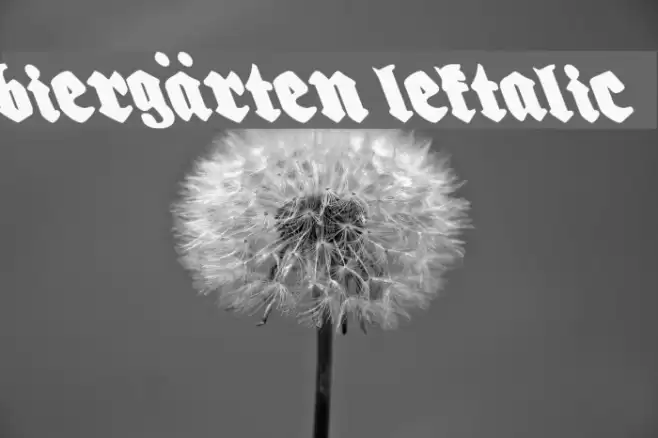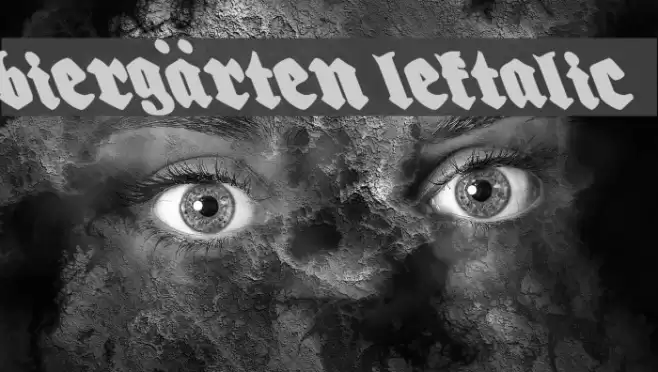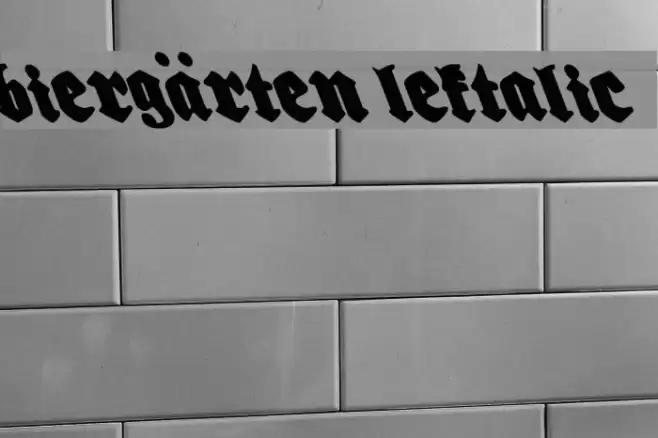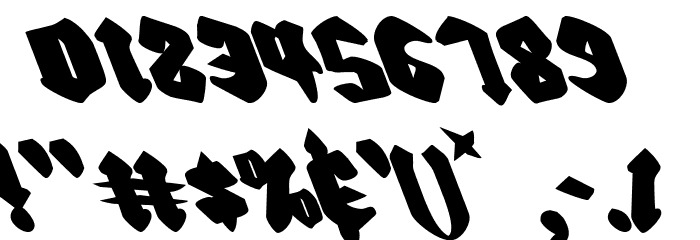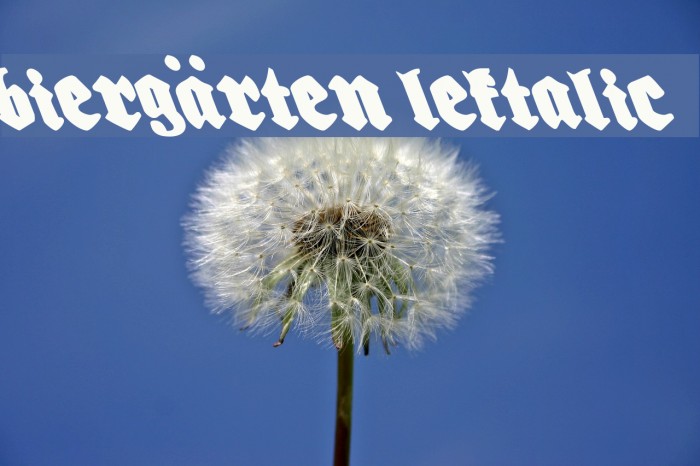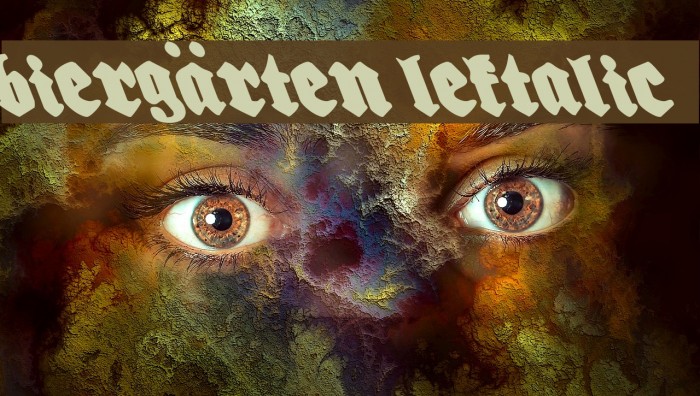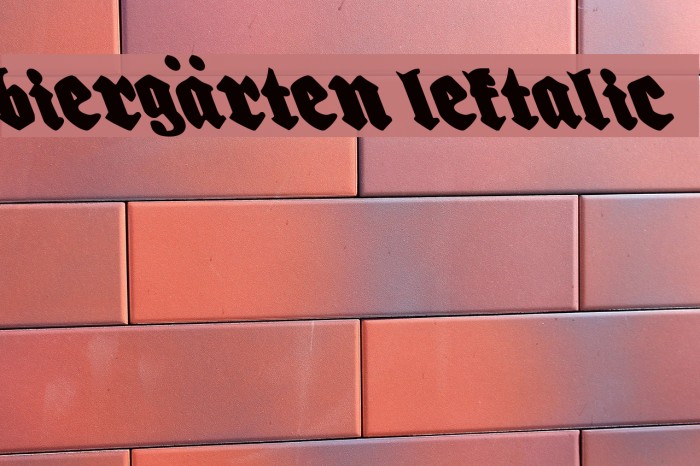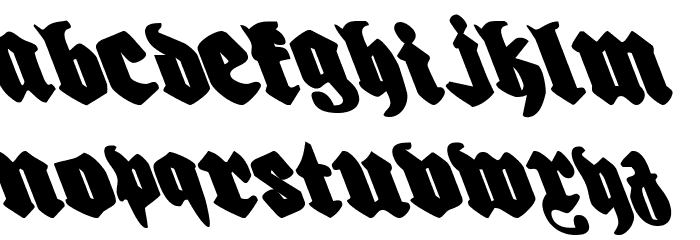
Biergärten Leftalic Font
Biergärten Leftalic Description
This font features a bold and dramatic style with a strong blackletter influence, characterized by its thick, angular strokes and sharp serifs. The letters are highly stylized, with a distinct medieval or gothic appearance, making it ideal for creating a sense of tradition and history. The uppercase and lowercase letters maintain a consistent style, with a slight slant that adds a dynamic feel to the text. Numbers and special characters are equally bold and ornate, ensuring a cohesive look across all elements.
A bold, blackletter-inspired font with a gothic and medieval flair from Gothic fonts.
- Proposed Projects: Ideal for projects requiring a historical or traditional aesthetic, such as event posters, book covers, or branding for breweries and pubs.
- Character Spacing: Tight
- Overall Style: Vintage